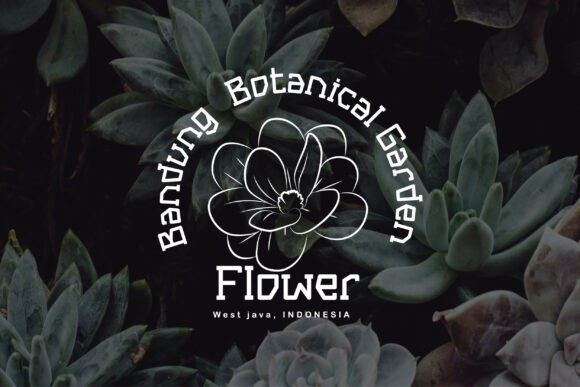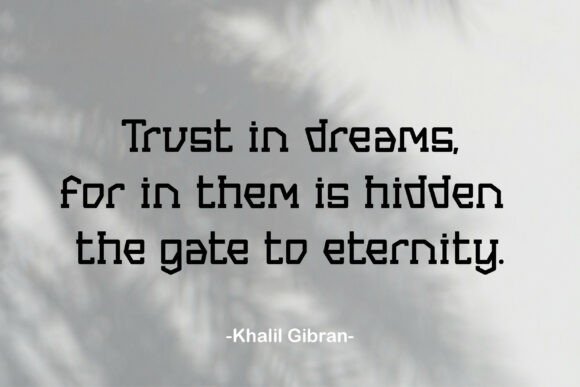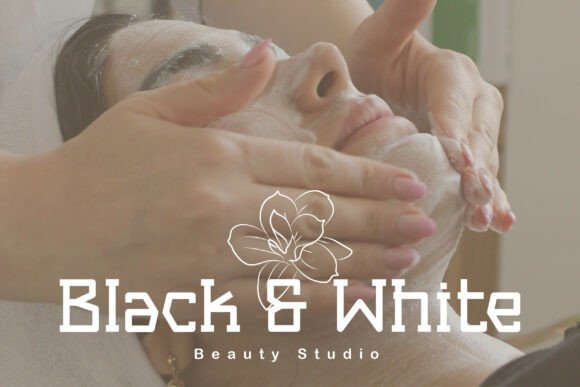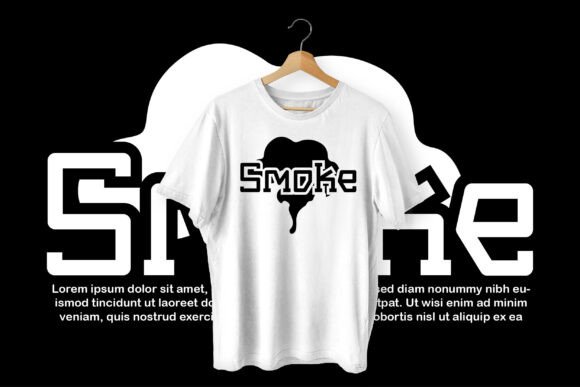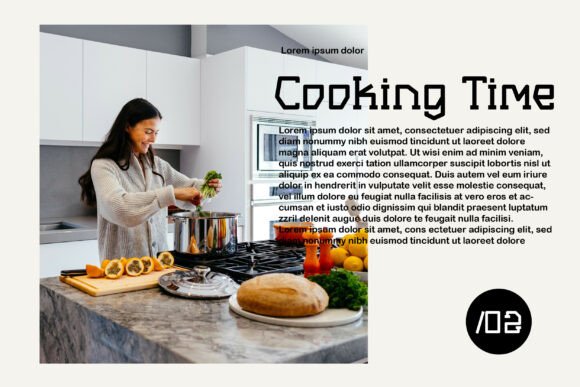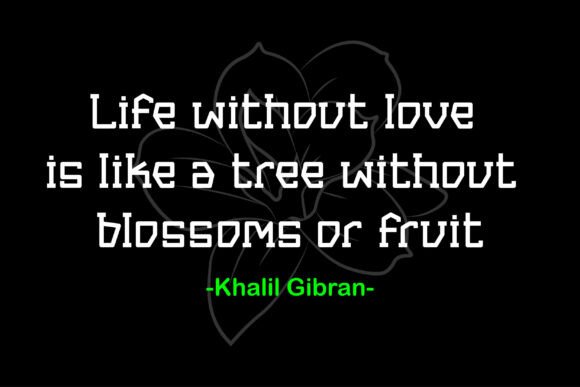
Introducing Black Berry: The Bold and Beautiful Serif Font
In the world of typography, a font can make all the difference in the success of a design project. With the right font, you can convey your message with style, add a touch of personality to your brand, and leave a lasting impression on your audience. If you’re looking for a font that embodies boldness, playfulness, and sophistication, look no further than Black Berry. This distinct, audacious, and self-assured serif font is sure to breathe new life into your designs and take them to the next level.
The Inspiration Behind Black Berry
Black Berry draws its inventive spirit from the intricate vines of the croton tree. The croton tree is known for its beautiful, sprawling branches and leaves, which have inspired countless artists and designers throughout history. With Black Berry, the unique characteristics of the croton tree have been distilled into a font that exudes opulence and refinement. Whether you’re working on a luxury brand project, a high-end product design, or simply want to add a touch of elegance to your social media graphics, Black Berry is the perfect choice.
A Font for the Digital World
In today’s digital landscape, a font needs to be versatile and adaptable to succeed. Black Berry is primed for the digital world and beyond, with robust characters that emanate a captivating allure. The font’s bold and playful personality shines through on digital platforms, making it ideal for social media graphics, website headers, and online advertising. But Black Berry is not limited to digital use only; its elegant and sophisticated design also makes it perfect for print materials, such as business cards, brochures, and t-shirt designs.
Unleash Your Creativity with Black Berry
Black Berry is more than just a font – it’s a design partner that can help you unleash your creativity and bring your ideas to life. With its unique blend of boldness and playfulness, Black Berry is the perfect choice for designers and crafters who want to add a dash of personality to their projects. Whether you’re working on a fashion brand, a lifestyle product, or simply want to create eye-catching social media graphics, Black Berry is the ideal partner to help you achieve your design goals.
Key Features of Black Berry
- Distinct and audacious design: Black Berry’s bold and playful personality makes it stand out from the crowd.
- Self-assured serif font: The font’s serif design adds a touch of sophistication and elegance to any project.
- Robust characters: Black Berry’s characters are designed to be strong and resilient, making them perfect for digital and print use.
- Captivating allure: The font’s unique design is sure to grab attention and leave a lasting impression on your audience.
- Versatile and adaptable: Black Berry can be used for a wide range of design projects, from social media graphics to fashion designs.
Using Black Berry in Your Designs
Black Berry is easy to use and can be incorporated into a wide range of design projects. Here are a few ideas to get you started:
- Social media graphics: Use Black Berry to create eye-catching social media graphics that grab attention and drive engagement.
- T-shirt designs: Add a touch of personality to your t-shirt designs with Black Berry’s bold and playful font.
- Branding and packaging: Use Black Berry to create luxurious branding and packaging designs that exude sophistication and elegance.
- Website headers: Add a touch of boldness to your website headers with Black Berry’s robust and captivating font.
| Font Name | Black Berry Font |
| Author | Patlot Digital.Studio |
In conclusion, Black Berry is a bold and beautiful serif font that is sure to take your designs to the next level. With its unique blend of boldness, playfulness, and sophistication, Black Berry is the perfect choice for designers and crafters who want to add a dash of personality to their projects. Whether you’re working on a luxury brand project, a high-end product design, or simply want to create eye-catching social media graphics, Black Berry is the ideal partner to help you achieve your design goals. So why wait? Unleash your creativity with Black Berry and discover a world of limitless design possibilities.